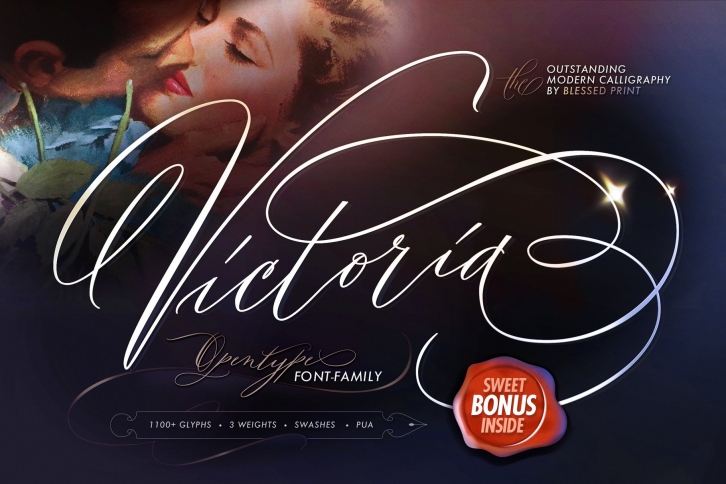
WHY VICTORIA
Despite the fact that Victoria script reflects the already established image of modern calligraphy, this font is quite unique due to its elegance and variety of alternates. Each capital letter comes in several options. Lowercase letters have up to 20 styles with beautiful swashes.
HOW DOES IT WORK
- Contextual alternates
- Standard ligatures
- Stylistic alternates
- 3 Weight
- Swashes / Flourishes
- 1100+ Glyphs
- 9 Ampersands (I know how it is important to have wonderful ampersand)
- Long swashes
- Pre-made swashes
PERFECT FOR
SWASHES
Short and long swashes are available on the fly if you type { } [ ] It is connecting perfectly to any letter
- Victoria-Flourish (Regular, EXT, Bold) for decorating your signs. Flourishes can also be an excellent opportunity to decorate such letters as t and capital A (each of these letters is available in the version without crossbar)